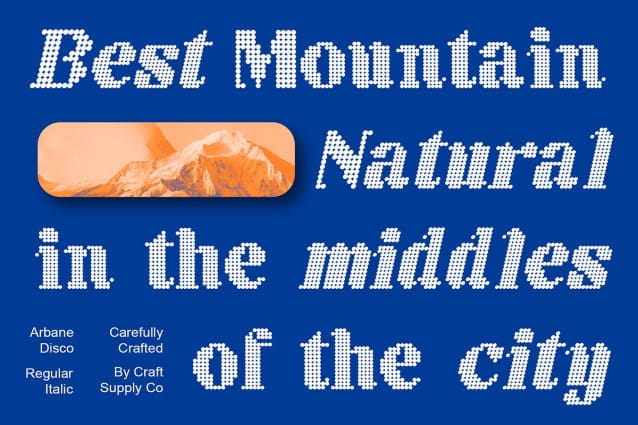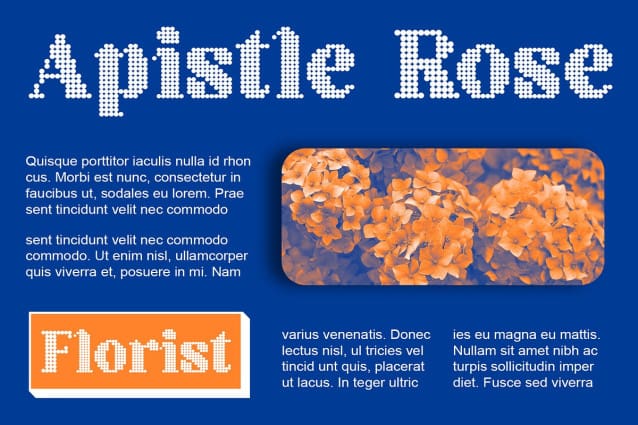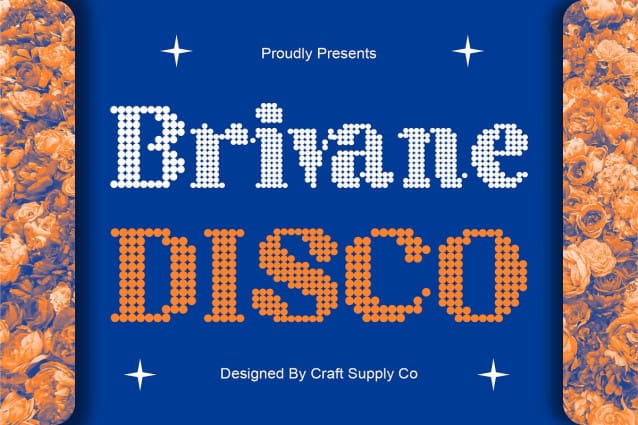
Brivane Disco Font
Brivane Disco Font is a stylish serif font that seamlessly blends retro elegance with lively disco vibes. Featuring a distinctive dot pattern, this font is perfect for creating eye-catching displays that stand out and captivate the audience.
With its classic serif design and playful dot pattern, Brivane Disco adds a unique flair to traditional typography. The retro and disco-inspired elements make it ideal for posters, event invitations, and other projects that need a bold and nostalgic touch.
Whether you’re designing a flyer for a vintage-themed event or creating packaging for a trendy product, Brivane Disco is sure to make a statement. Its elegant design and unique dot pattern make it perfect for displays that demand attention and exude retro charm.
Despite its distinctive appearance, Brivane Disco is versatile and easy to use. The font works well in both large and small sizes, making it suitable for a variety of applications, from headlines and banners to logos and more. With its blend of retro elegance and disco fun, Brivane Disco adds a captivating and dynamic touch to any design.